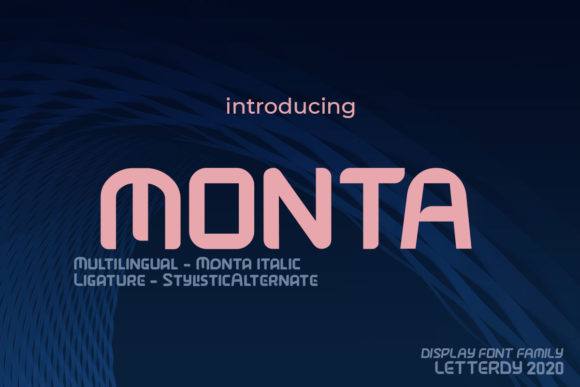
Meet Monta Font, the display font that's anything but ordinary. Designed by die.miftah21, Monta is a minimalist and futuristic font that revels in the captivating allure of abstract shapes. Its eclectic nature promises to breathe life into your creative projects, making them shine brighter than ever before.
With Monta Font, you'll embark on a typographic journey where boundaries dissolve, and innovation reigns supreme. Its clean lines and geometric precision evoke a sense of modernity, while its playful spirit adds a touch of whimsy that's sure to captivate your audience.
Whether you're a graphic designer seeking to make a statement, a web developer yearning for a font that breaks the mold, or a content creator looking to add a dash of the extraordinary, Monta Font is your perfect companion. Its versatility knows no bounds, effortlessly adapting to a myriad of projects, from logos and branding to social media graphics and website designs.
With Monta Font, your creative potential becomes limitless. Its captivating forms will transform your words into visual masterpieces, leaving a lasting impression on all who encounter them. Embrace the future of typography, download Monta Font today, and watch your creative ideas soar to new heights!